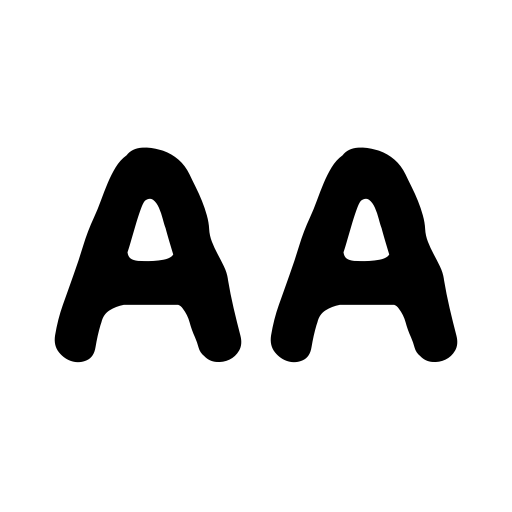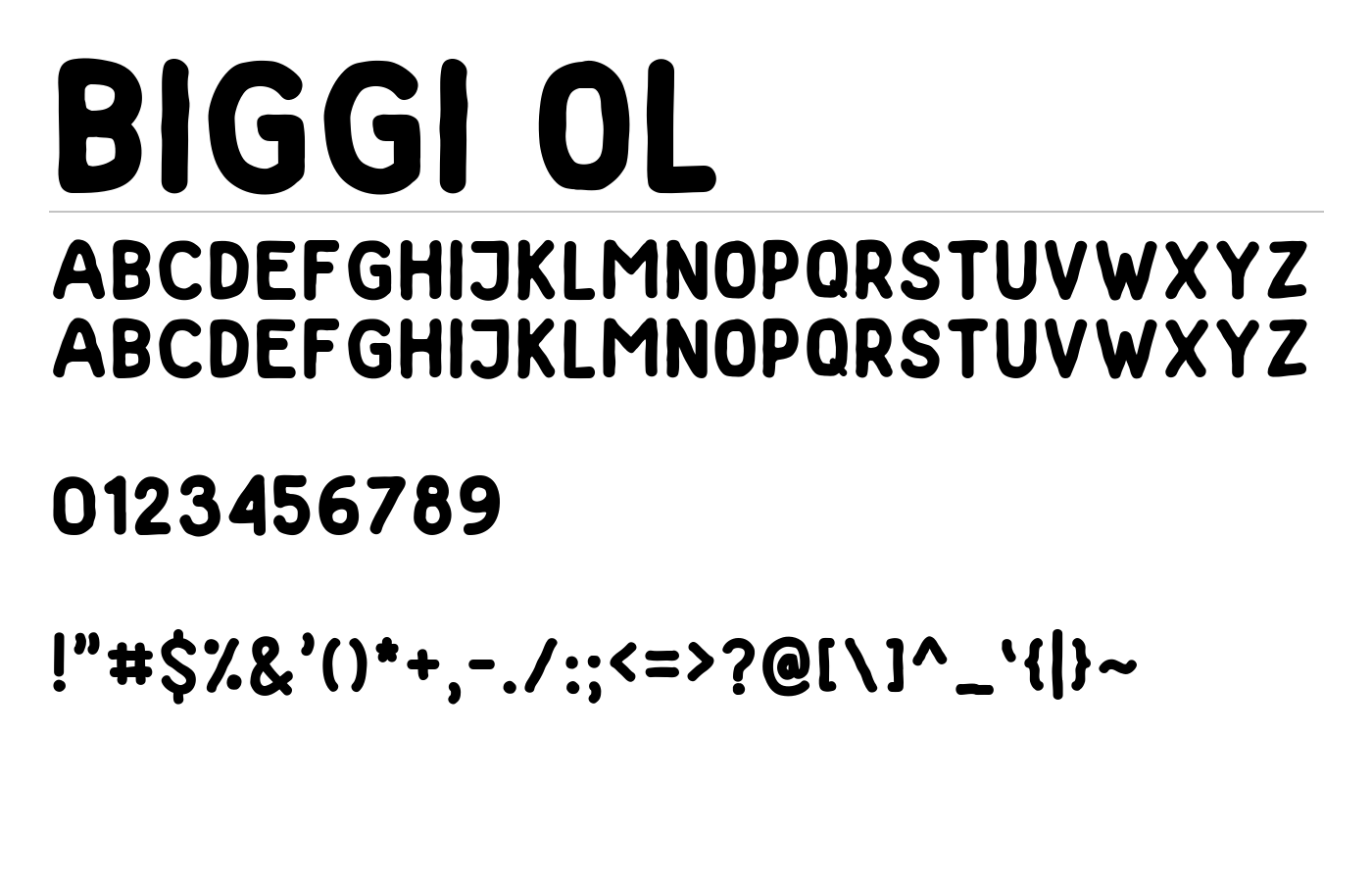
Biggi Ol is a playful, rounded sans serif font with a bold weight and a slightly condensed width, featuring soft, friendly letterforms that radiate warmth and approachability. Its lively, irregular shapes give it a hand-crafted feel, making it ideal for creative projects, children’s materials, and informal branding where a fun and inviting personality is desired. This font works best in headlines, logos, and packaging, bringing a charming and casual touch to any design.
Biggi Ol Font
About Biggi Ol Font
| Font family | Biggi Ol Font |
| Designer | the bundles |